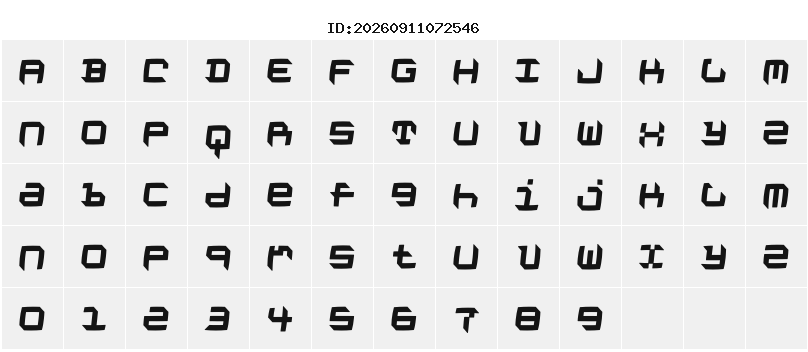
• Font Name: VanDoesburgBrokenFS
About VanDoesburgBrokenFS.ttf
VanDoesburgBrokenFS.ttf is a modern, elegant sans-serif font designed for ultimate readability and visual harmony. Perfect for branding, headlines, web design, and print materials.